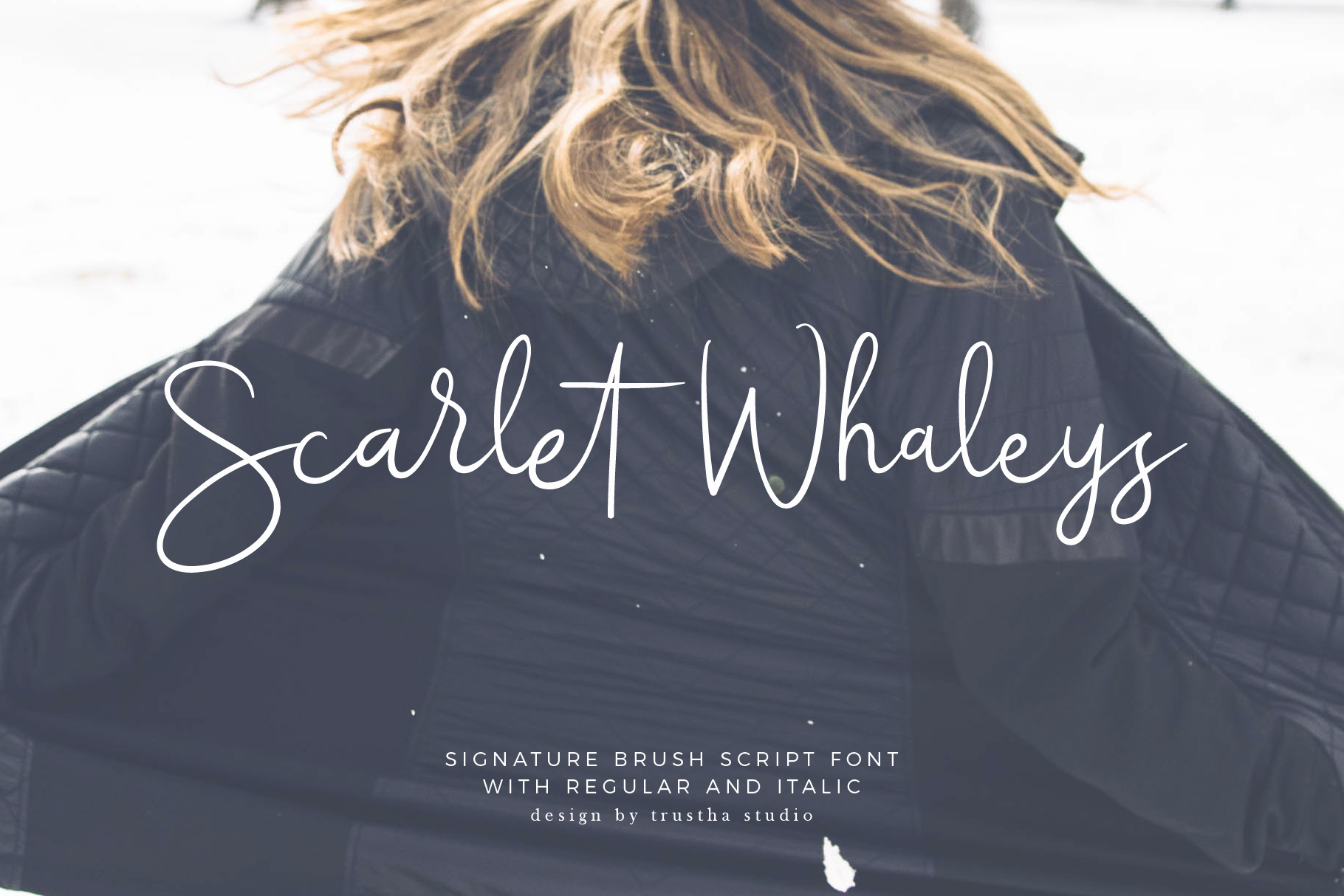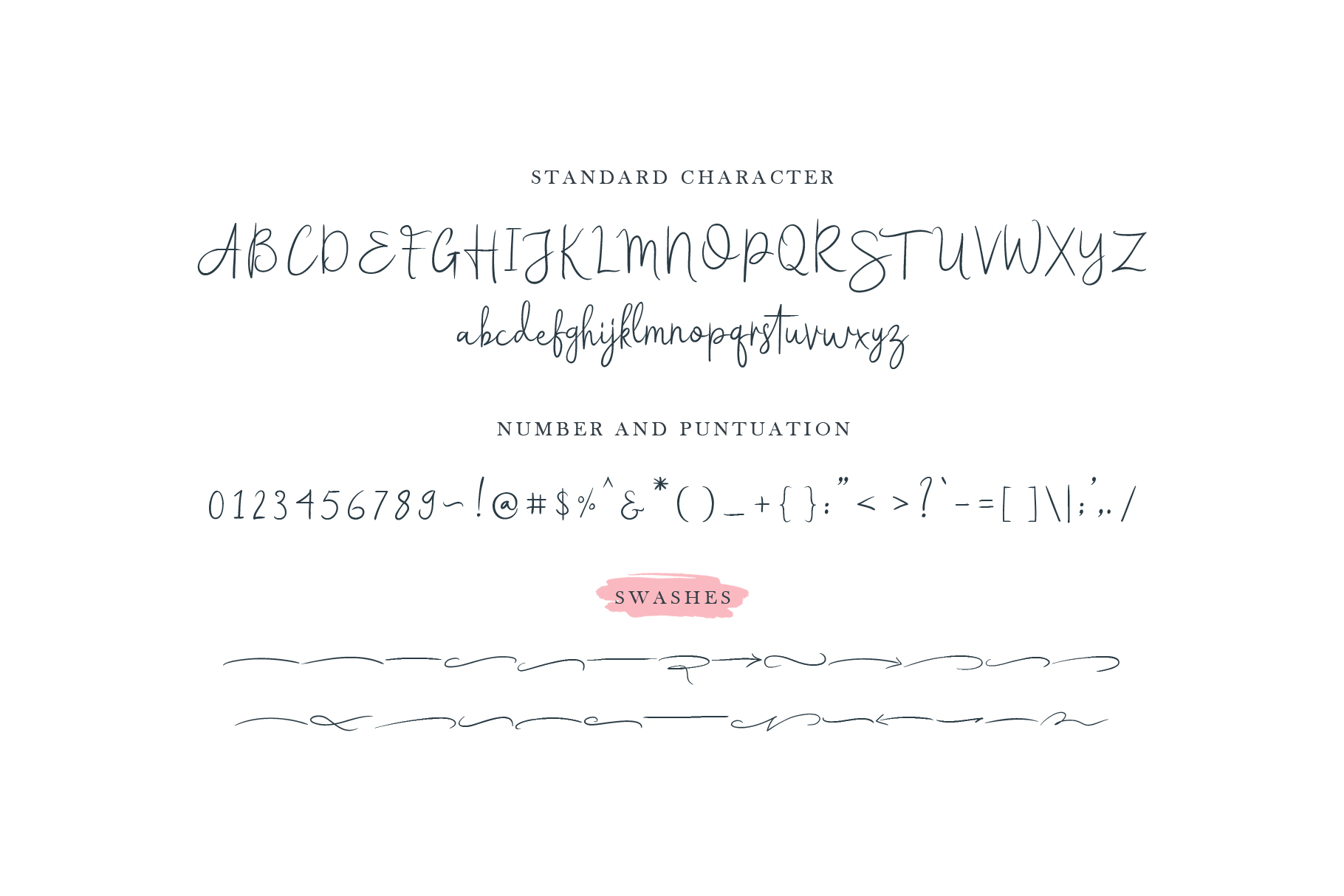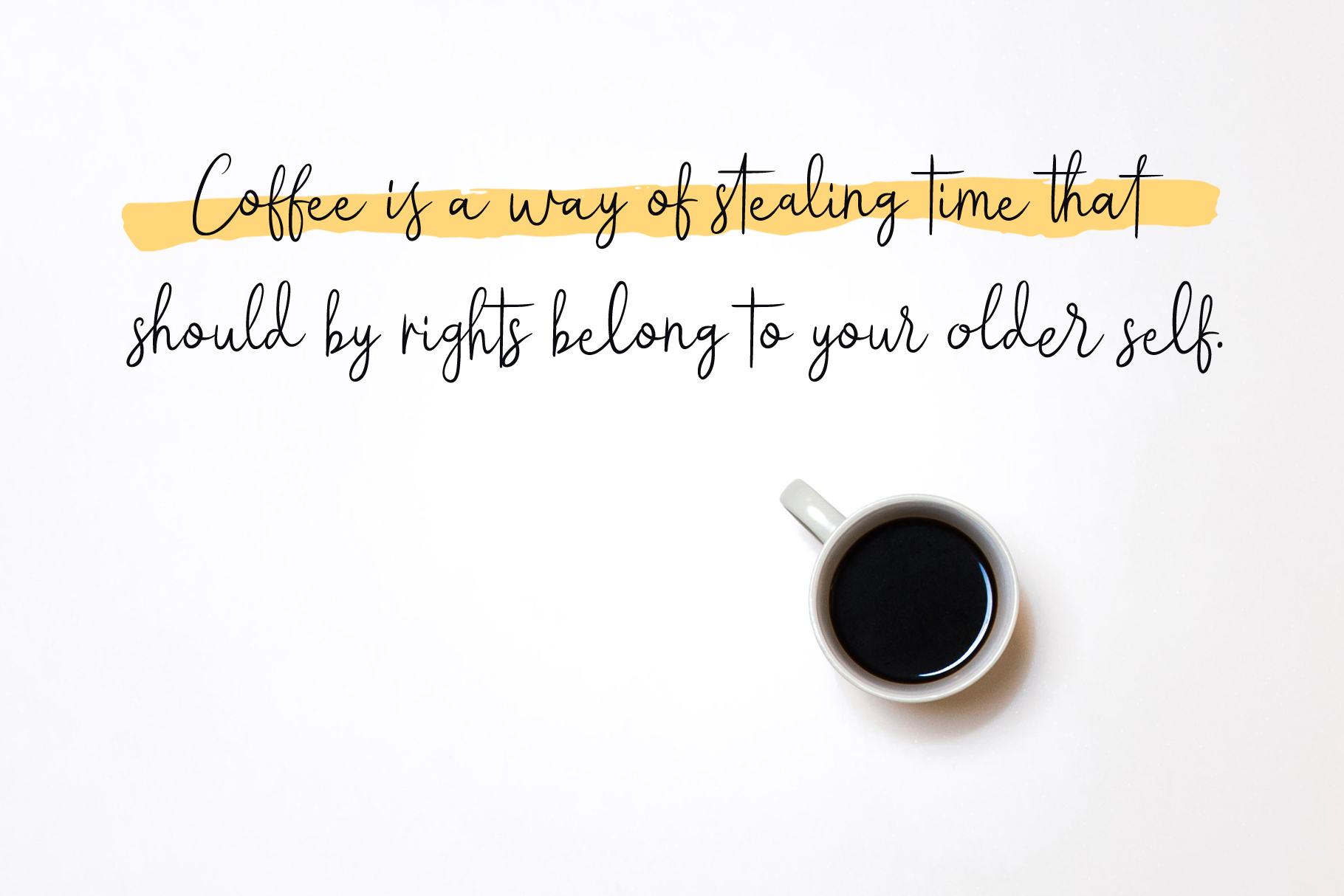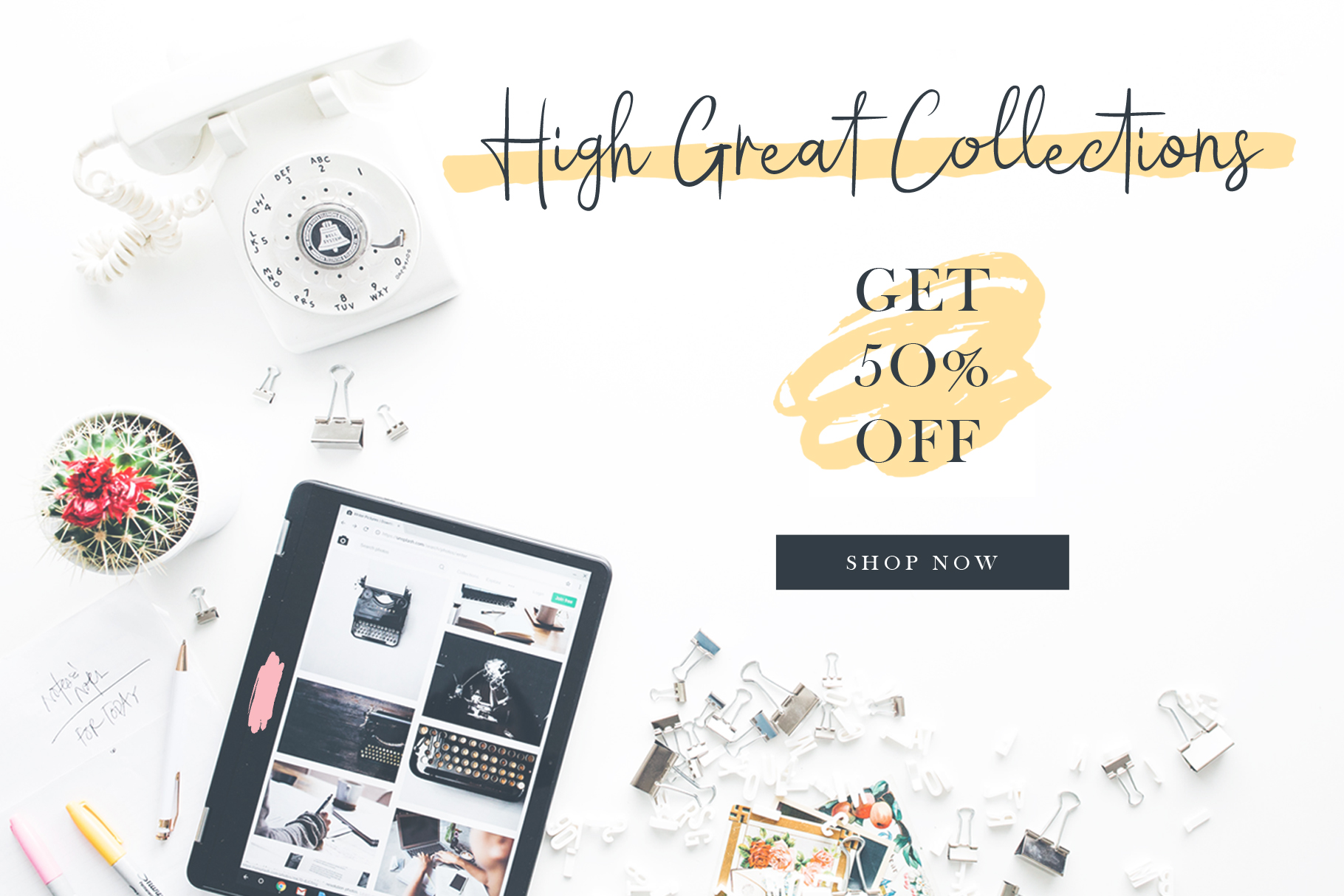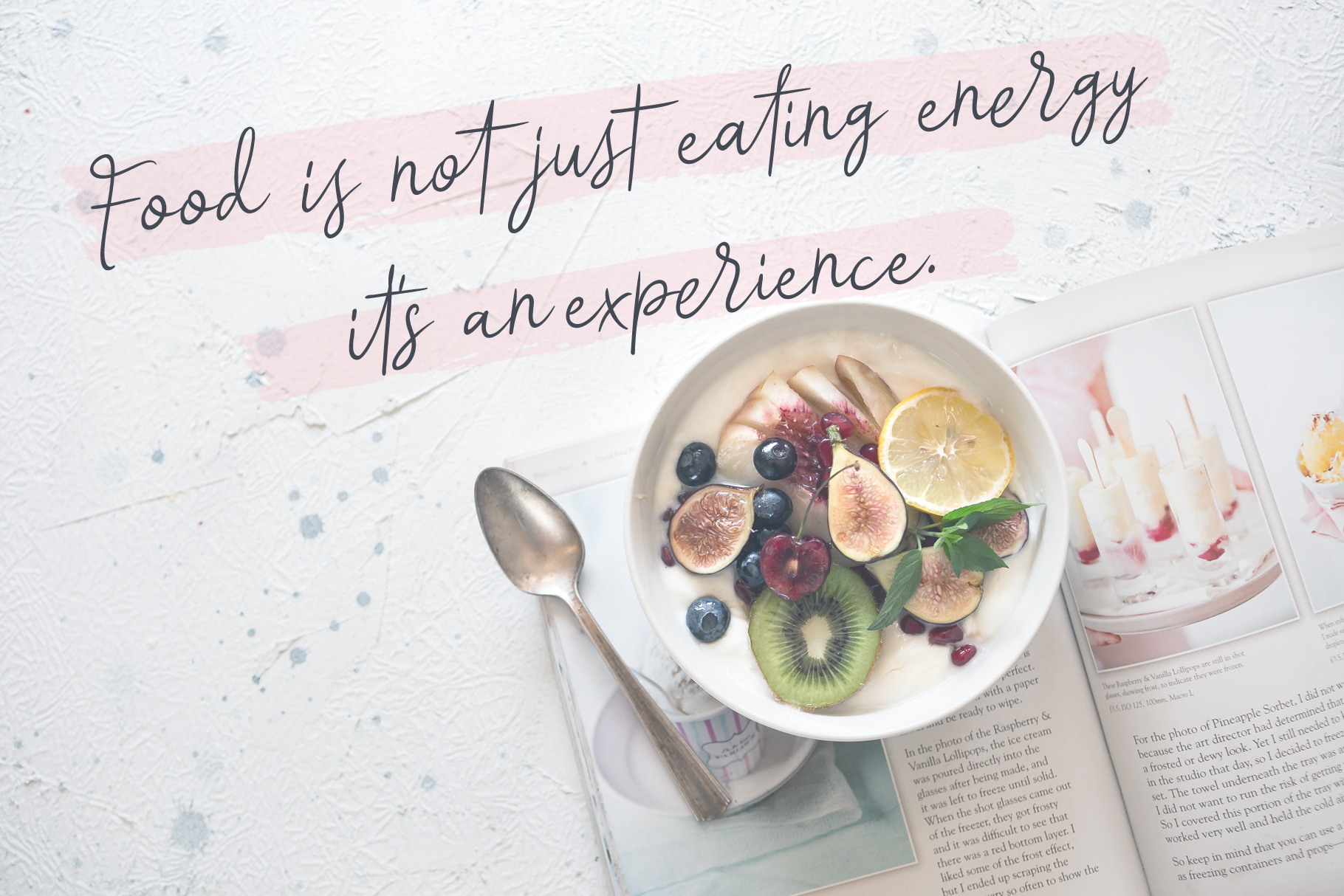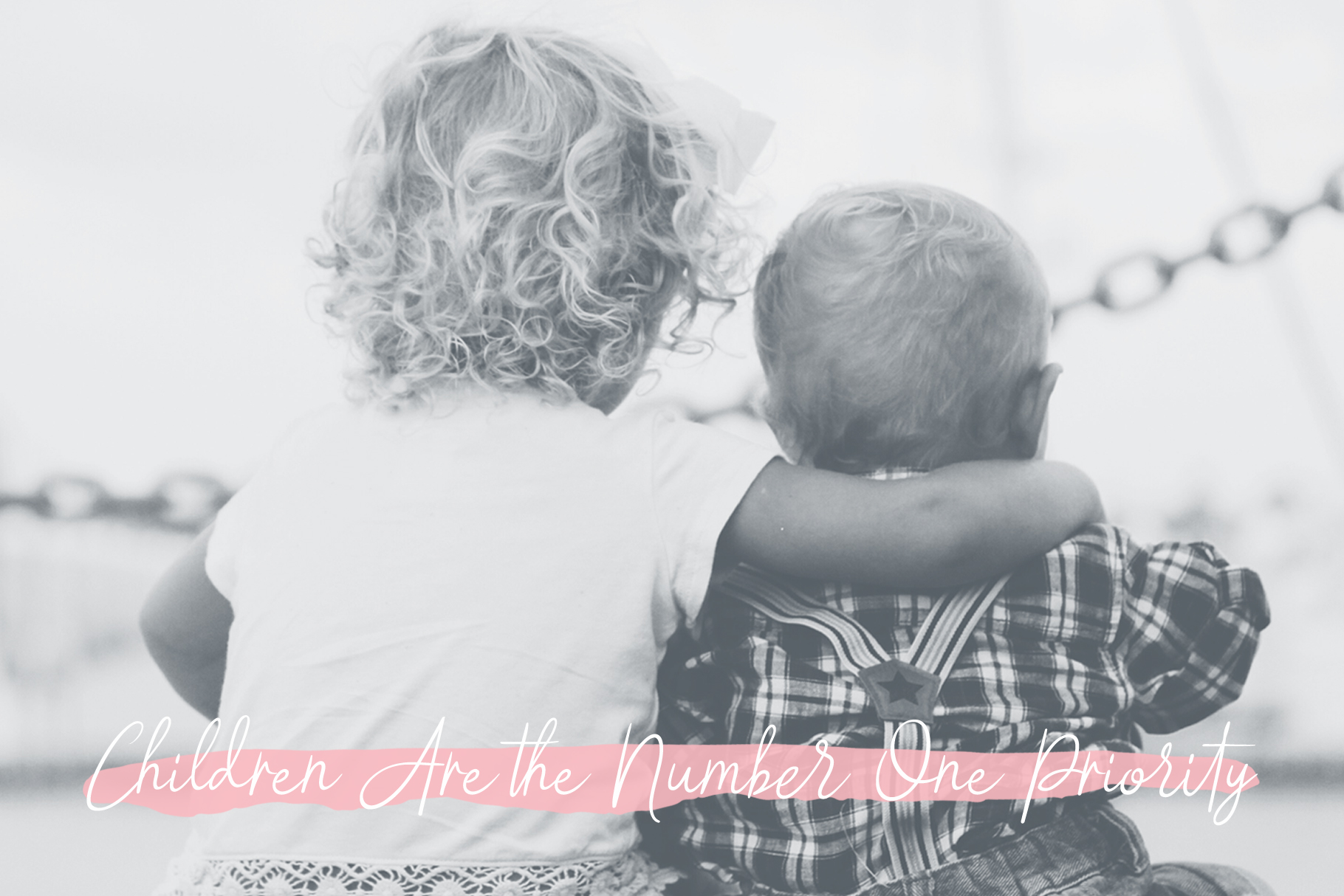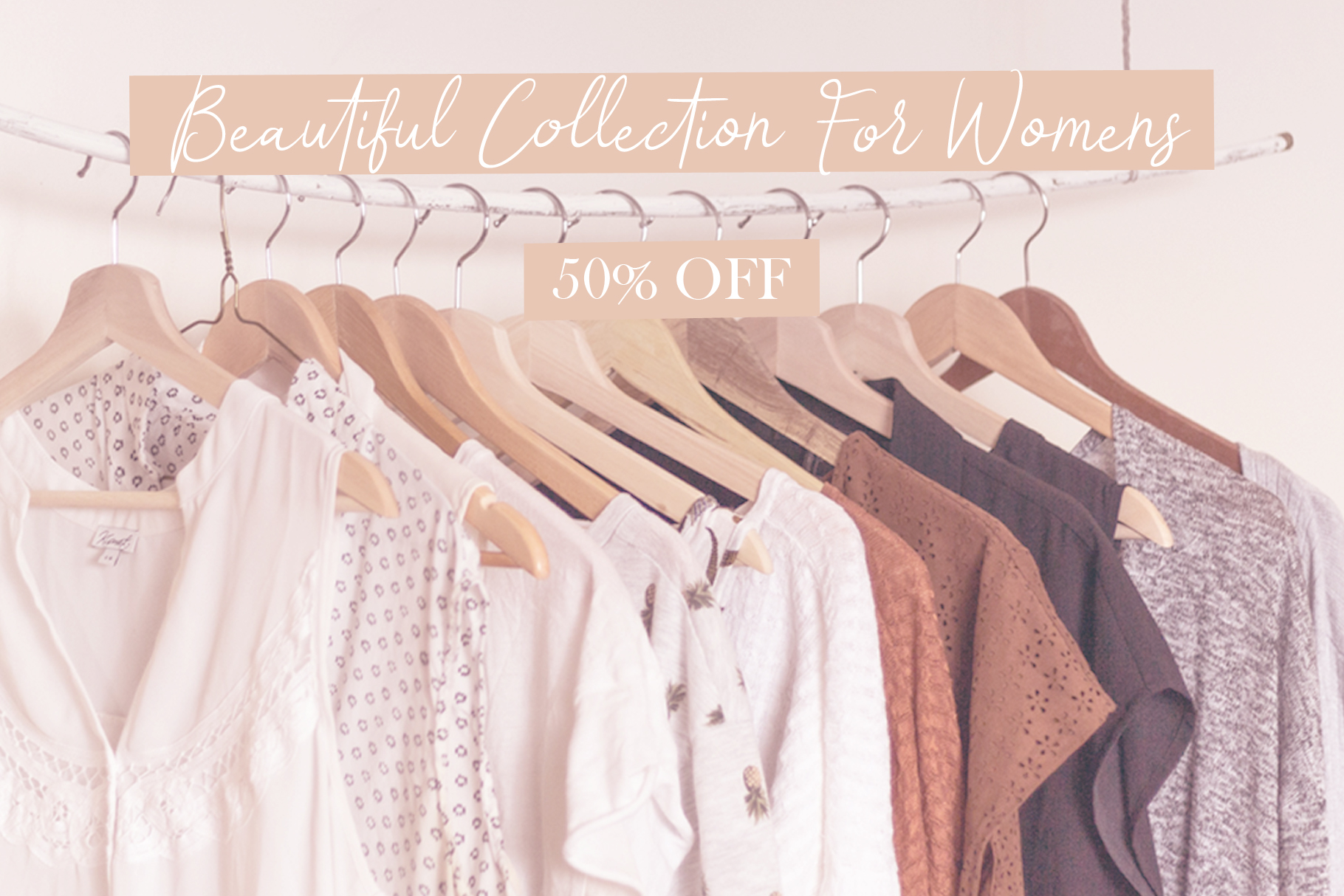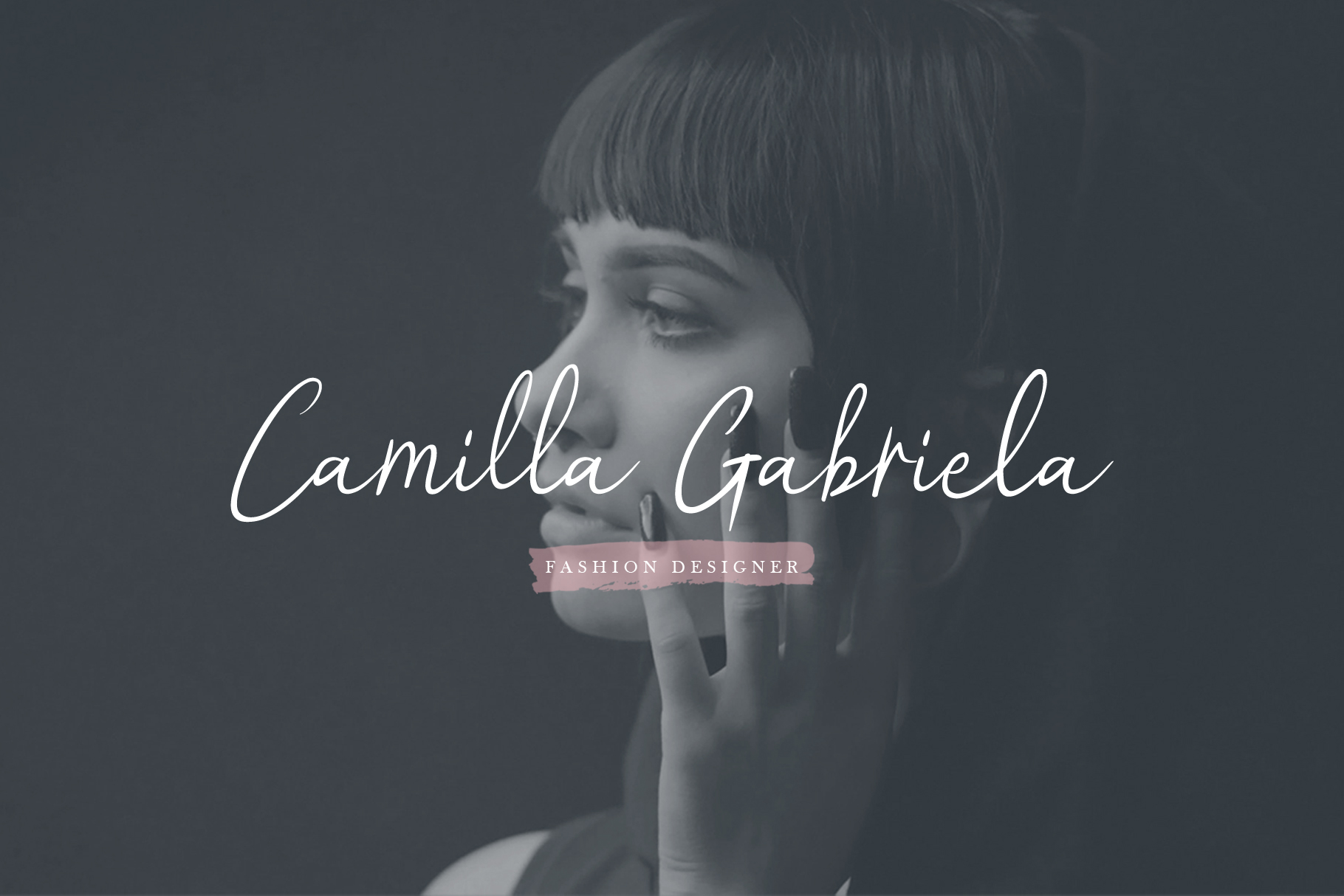
Scarlet Whaleys Font
Scarlet Whaleys is a stunning signature brush script font. Scarlet Whaleys is a practical and beautiful calligraphy font for use in displays and headlines.